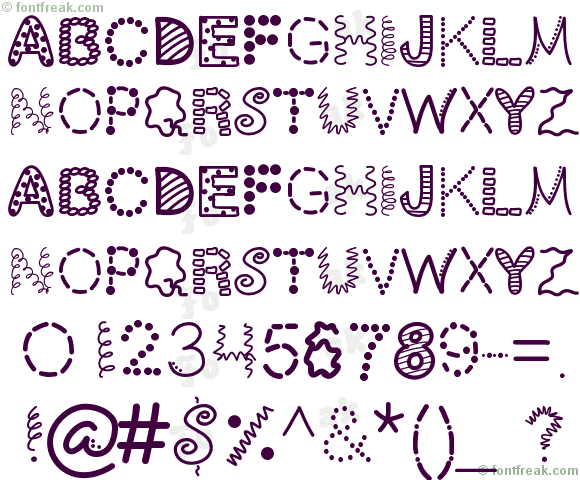
ScrapOHolic
ScrapOHolic by Vanessa Bays is a captivating decorative font that beautifully combines playful creativity with artistic flair. This unique typeface features a charming mix of whimsical shapes, dots, and lines that evoke a sense of fun and lightheartedness. Its distinct visual characteristics include a varied stroke weight and an eclectic arrangement of decorative elements, making it stand out as a truly original font choice. The spacing is intentionally irregular, enhancing its handcrafted appeal, which is perfect for projects that aim to capture attention and evoke emotion.
The ScrapOHolic font is particularly well-suited for a variety of creative applications. It shines in contexts such as scrapbooking, where its playful essence complements personal memories. Additionally, it can elevate the aesthetic of wedding invitations, lending a touch of whimsy to special occasions. Restaurants looking to create a unique menu that reflects their brand identity can also benefit from this font. Furthermore, it is ideal for children’s book covers or educational materials that require a friendly and inviting look.
What sets the ScrapOHolic font apart is its ability to blend artistry with functionality. Its distinctive style not only captures attention but also encourages creative expression, making it a beloved choice for a wide range of projects. Whether you’re creating a joyful invitation or a playful advertisement, ScrapOHolic font free download allows you to infuse your work with a sense of originality and charm that resonates with audiences.